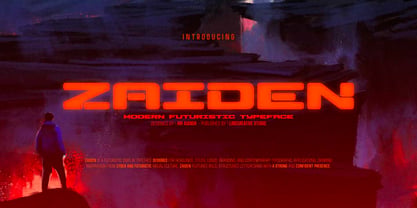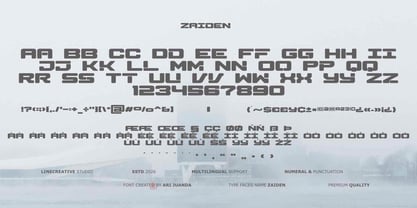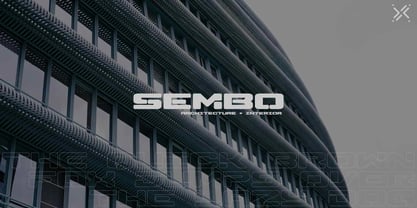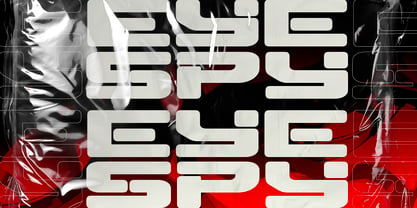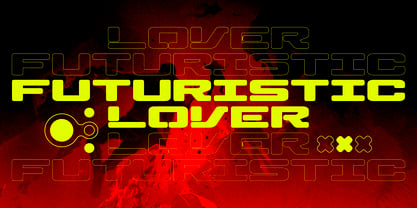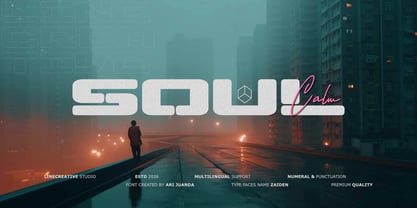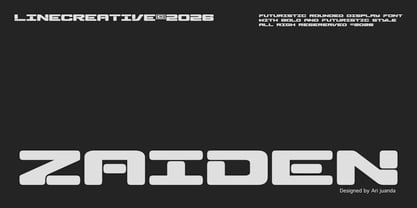
Zaiden
by Linecreative
The Zaiden Font Family was designed by Ari Juanda and published by Linecreative. Zaiden contains 1 styles. More about this family
Introducing the Zaiden font, this typeface features bold, rounded weights, with capital letters as its primary form. The lowercase characters are precisely cut, creating a futuristic aesthetic while ensuring clarity and legibility. This design approach imparts a distinctive technological character, making it ideal for modern, forward-thinking design projects.
Designers: Ari Juanda
Foundry: Linecreative